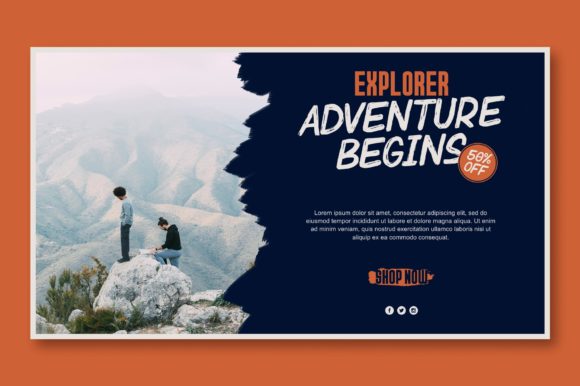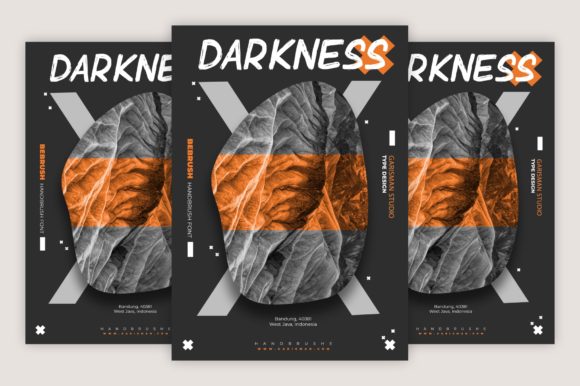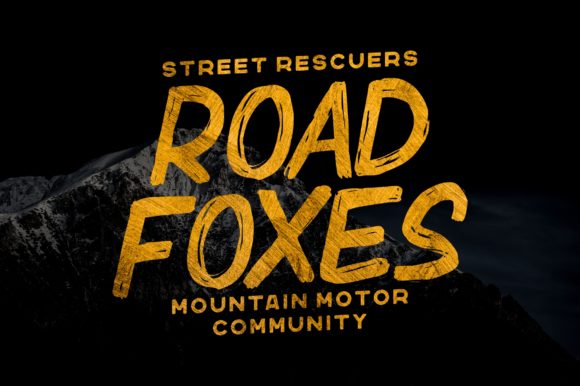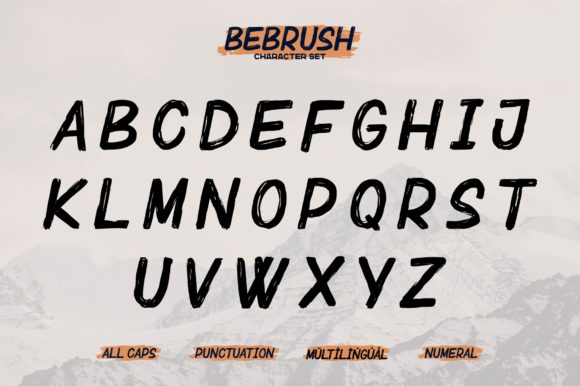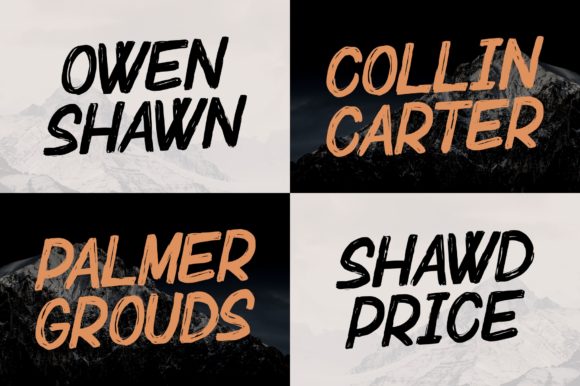
The Perfect Brush Stroke for Your Next Design
Have you ever found yourself doodling in the margins of a sketchbook, lost in the joy of creating something completely unplanned? That’s exactly where the magic happens – in those moments of unbridled creativity, where the rules of design are thrown out the window and all that’s left is the thrill of bringing an idea to life.
For designers looking to add a touch of whimsy to their work, the Bebrush Font is the perfect tool. This charming, casual display font was born from the gentle strokes of a brush pen, giving it a clean, quirky feel that’s sure to captivate your audience. Whether you’re crafting a logo, branding your social media presence, or working on a crafty DIY project, the Bebrush Font is a valuable asset in your design toolkit.
Bebrush Font Key Features
- Font Style: Bebrush is a unique, hand-drawn brush font with a modern and artistic feel.
- Unique Characteristics: Bebrush features a range of custom-designed brush strokes, creating a dynamic and expressive feel.
Bebrush Font Review
As a designer, I was excited to dive into the Bebrush font, but my experience was a mixed bag. Let’s start with the good stuff: ✨ The Bebrush font is incredibly versatile, making it a great choice for a wide range of design projects. Its unique, hand-painted aesthetic gives it a charming, artistic feel that’s perfect for anything from branding to editorial design. I also appreciate how easy it is to customize the font, with plenty of options for adjusting the color, size, and spacing.
- ✨ Versatile and adaptable to various design projects
- ✨ Unique, hand-painted aesthetic adds a touch of personality
- ✨ Easy to customize with various color, size, and spacing options
However, there are some limitations to consider: ⚠️ The Bebrush font can be a bit difficult to read at smaller sizes, and the hand-painted texture can sometimes make it look a bit cluttered. Additionally, the font is quite bold, which may not be suitable for all design projects.
- ⚠️ Difficult to read at smaller sizes
- ⚠️ Can look cluttered due to the hand-painted texture
- ⚠️ Bold font may not be suitable for all design projects
Overall, I think the Bebrush font is a great choice for designers looking for a unique, artistic font. While it may have some limitations, its versatility and customizability make it a valuable addition to any design toolkit.